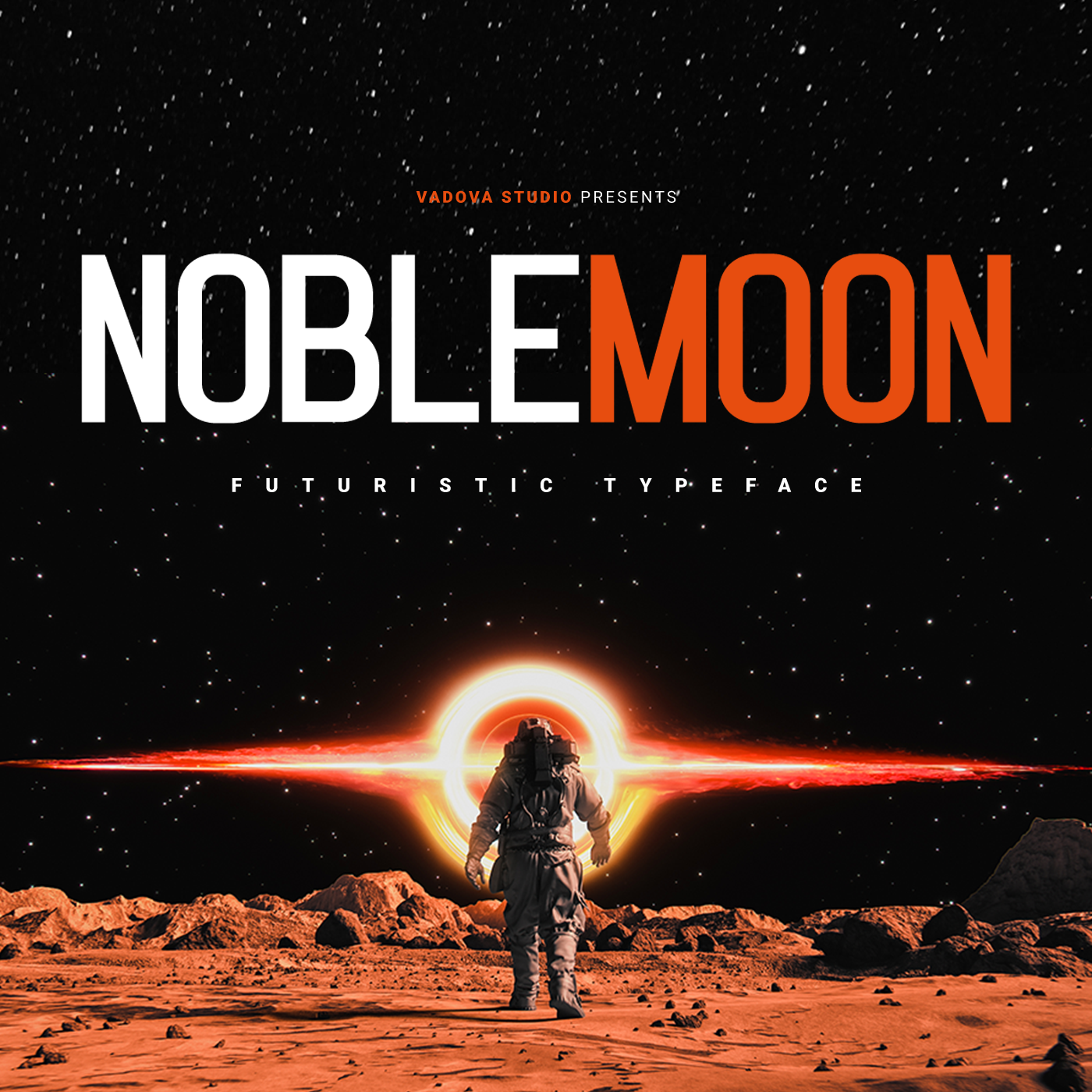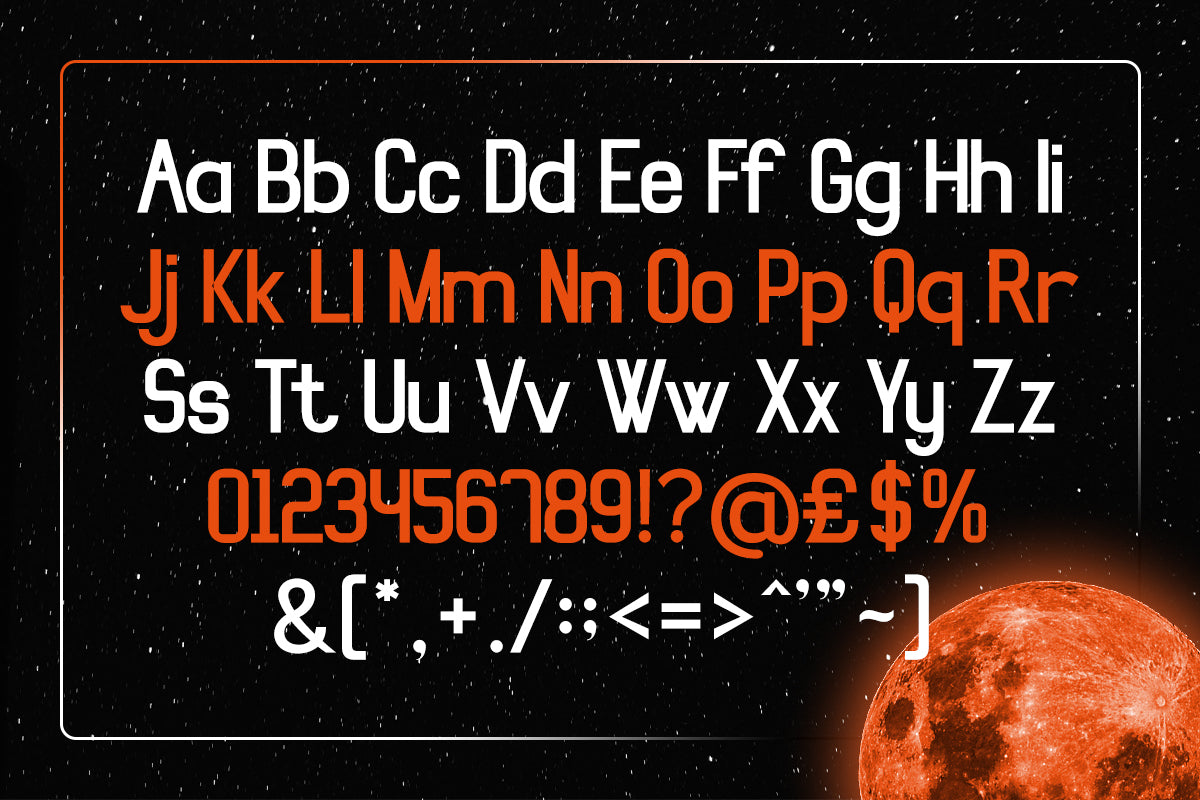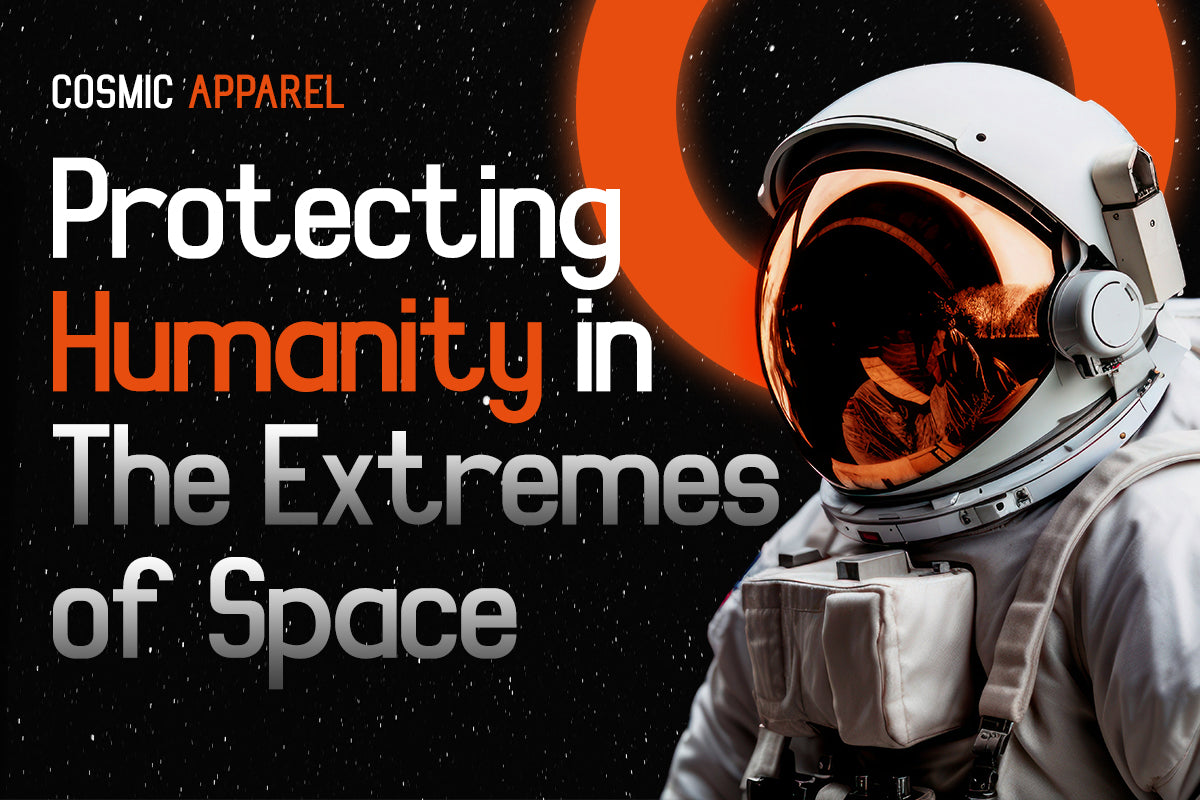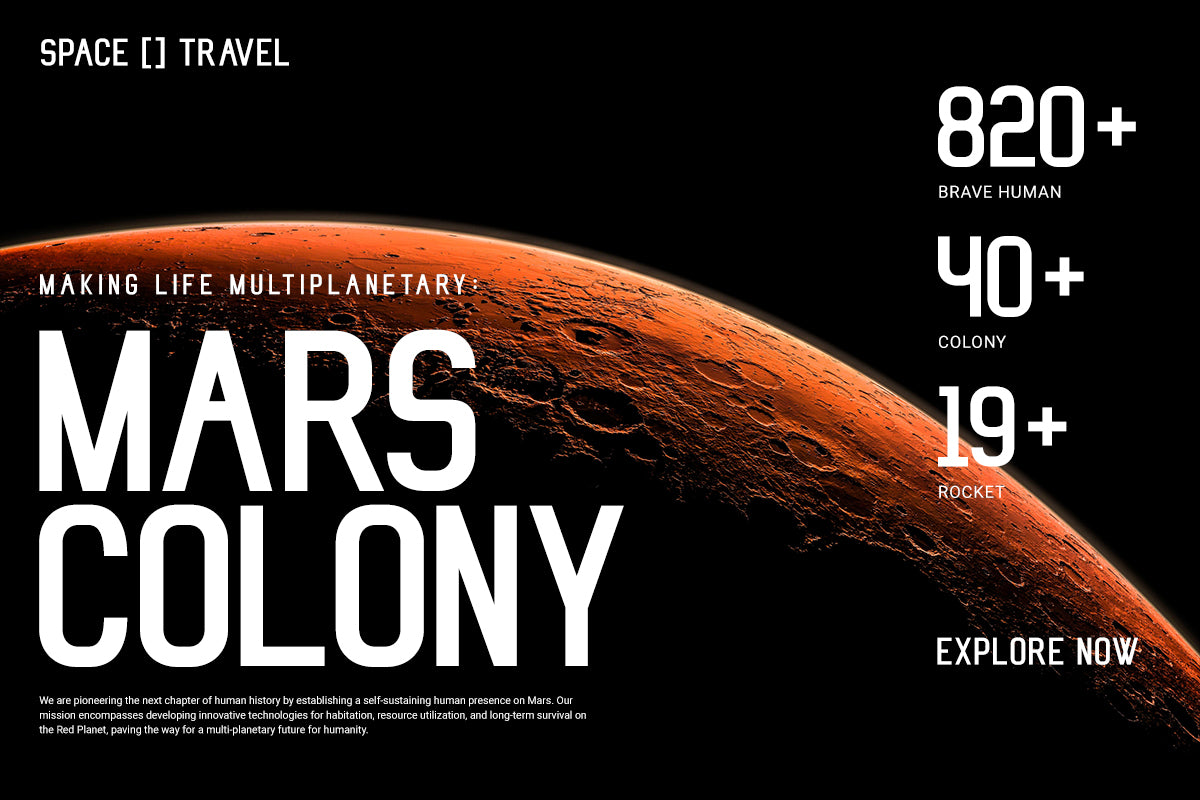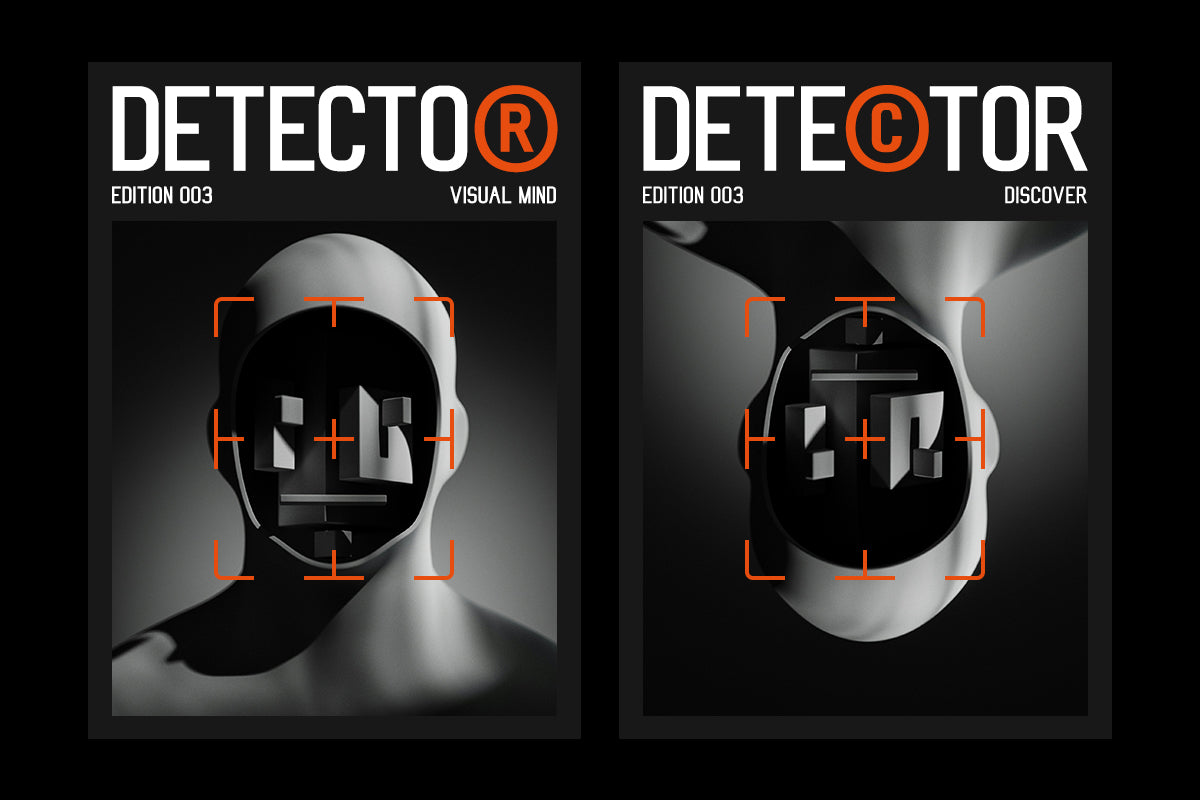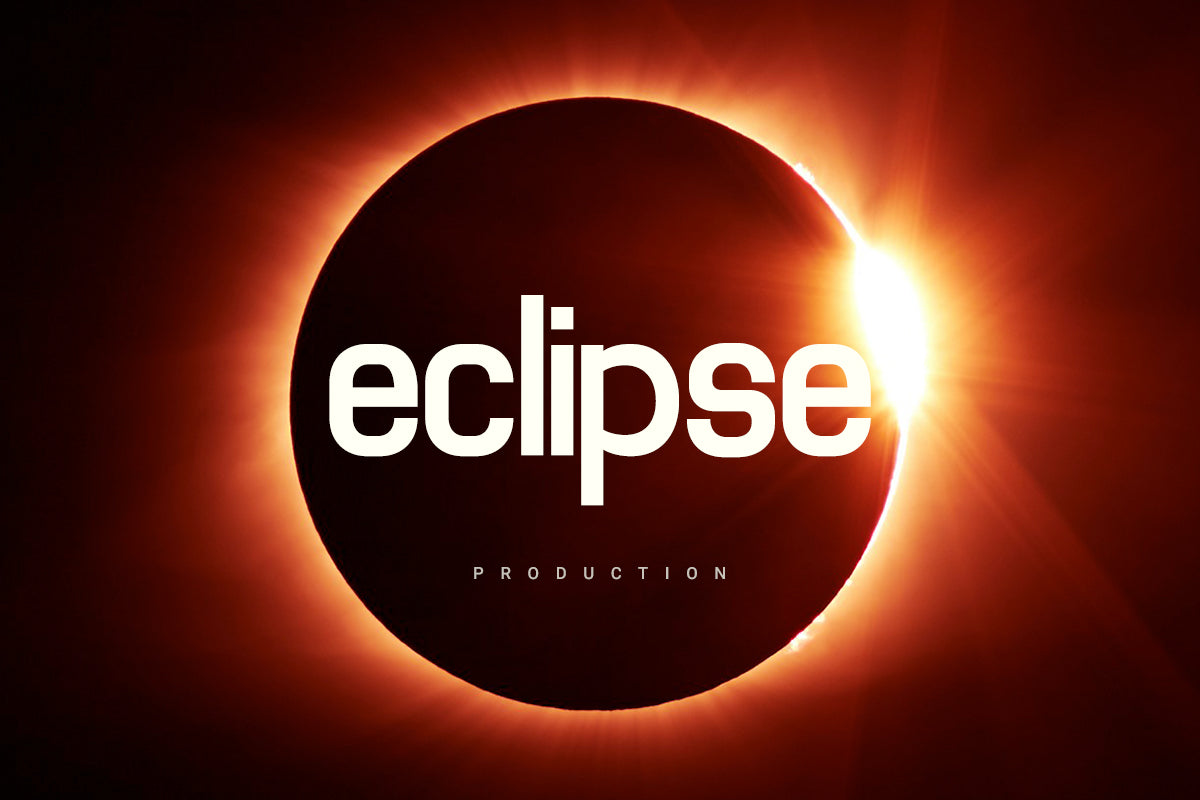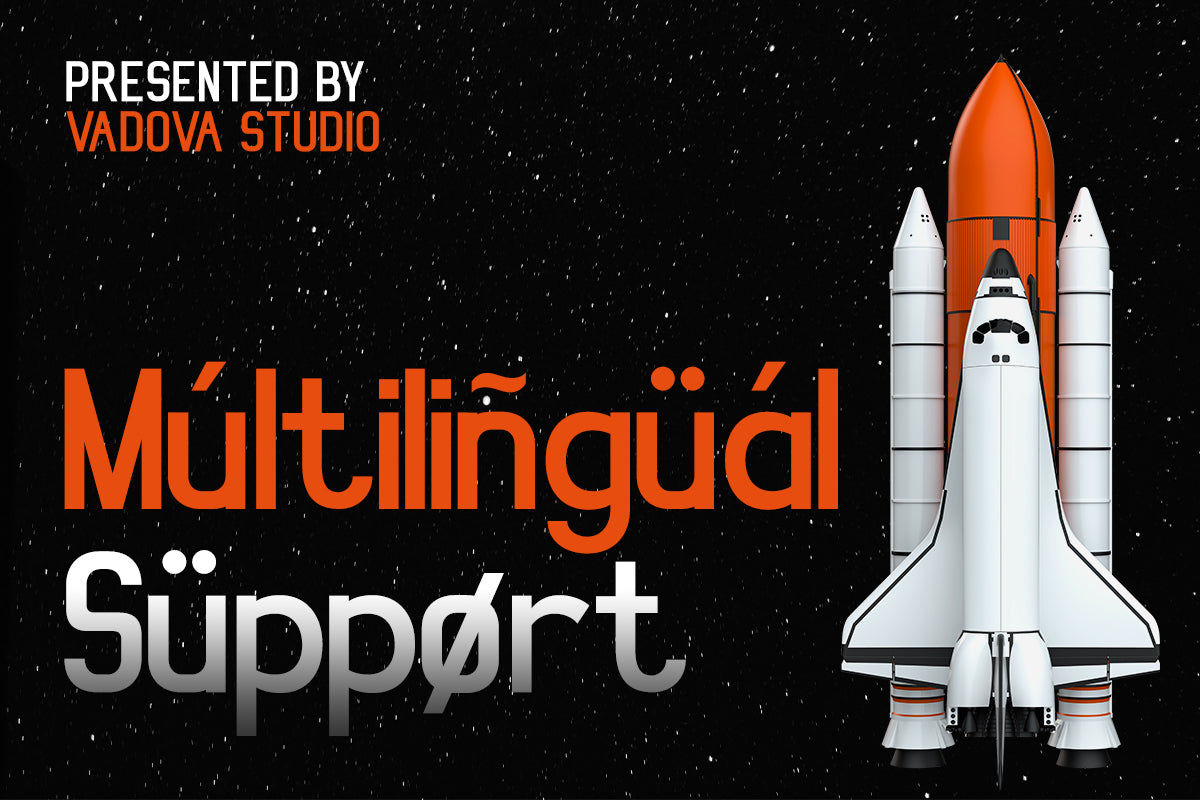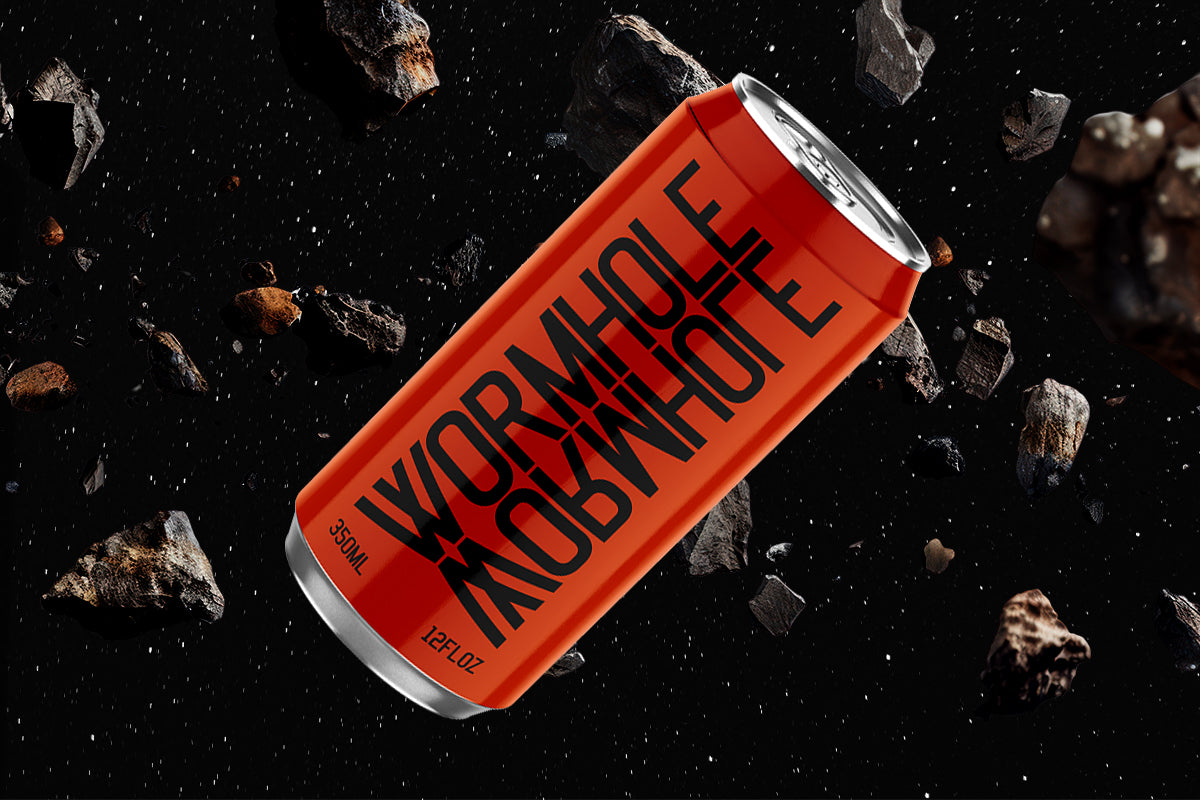
Noblemoon Futuristic Typeface Font
Noblemoon Futuristic Typeface Font is a bold futuristic display font featuring condensed geometric forms, space-inspired styling, and modern sci-fi character details. The typeface includes uppercase, lowercase, numerals, punctuation, and multilingual support, crafted for impactful headlines, technology branding, and futuristic visual concepts. Its sleek structure, tall proportions, and cosmic aesthetic make it suitable for digital and print projects that need a strong futuristic presence.
Relevance and Use Cases is perfect for sci-fi branding, gaming titles, tech startups, futuristic posters, space themed projects, movie titles, app interfaces, esports identities, digital campaigns, and modern editorial layouts needing bold technological typography. Suitable for technology branding, gaming graphics, sci-fi posters, movie titles, startup identities, UI concepts, digital advertising, esports visuals, futuristic packaging, and experimental editorial designs that require strong modern display typography.
The Noblemoon Futuristic Typeface Font is a bold display font characterized by condensed geometric forms and modern sci-fi details. It includes uppercase and lowercase characters, numerals, punctuation, and multilingual support, available in TTF, OTF, and WOFF formats.